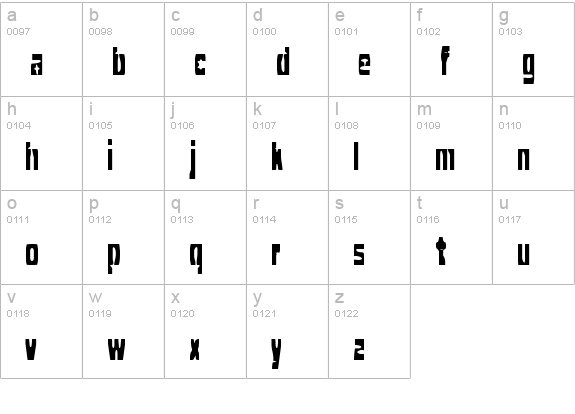
Cleaved TTR BRK Font Details
Cleaved TTR BRK font is a unique and modern typeface that combines sharp edges with a sleek design, creating a visually striking appearance. The geometric shapes and bold letterforms of this font make it perfect for projects that require a strong and impactful aesthetic. What sets Cleaved TTR BRK font apart is its versatility - it can be used for anything from headlines and posters to logos and branding materials. The clean lines and distinctive style of this font will make your message stand out and leave a lasting impression on your audience. Best of all, Cleaved TTR BRK font is completely free to download at FontsMarket.com. Whether you're a designer looking to add a fresh touch to your projects or a business owner in need of a striking font for your marketing materials, Cleaved TTR BRK font is the perfect choice. Download it today and start creating eye-catching designs that will captivate and engage your audience.